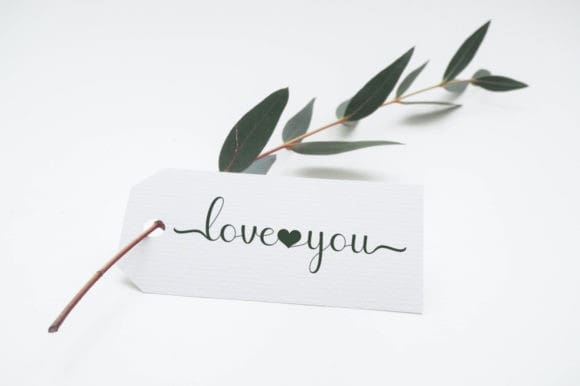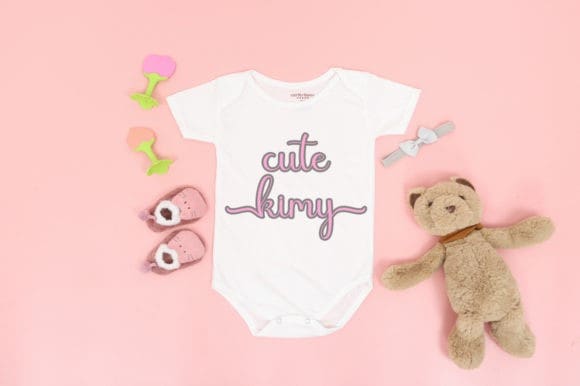
Hello Heart Font
Hello Heart Font is a romantic, cute, and beautiful script font. This font is PUA encoded which means you can access all of the glyphs and swashes with ease! It will look outstanding in a wide range of contexts.